Welcome to our roundup of the best new fonts we’ve found on the web in the previous four weeks. In this month’s edition there’s plenty of hand-lettering charm, and some excellent historical revivals. Enjoy!
Kornel
Kornel is a serif type family designed for long texts, featuring classic proportions and sharp details that work well on the web. Inspired by Renaissance typography, its simplified forms deliver a contemporary twist. There are seven weights and accompanying italics.
Tre
Tré is a unique typeface born from the logotype for Tré Seals, the founder of Vocal type. The forms are drawn from the scars left by Tré’s brain surgery. The self-titled font is a bold, confident, high-contrast stencil font with sharp angular strokes — exactly like surgical cuts.
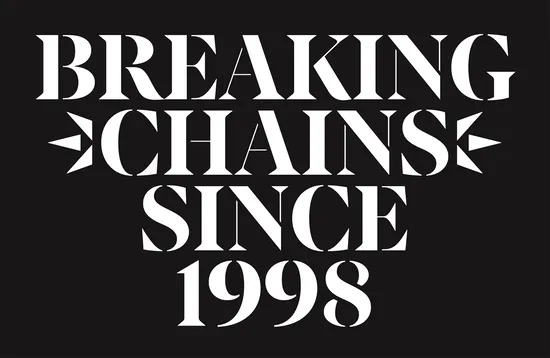
Cin Cin
Cin Cin is a charming hand-lettered font. It includes a very well balanced upper and lowercase, giving it the flexibility to be used as more than display type. It’s perfect for books, greeting cards, posters, and even logos. It injects fun and energy into any project it’s used for.
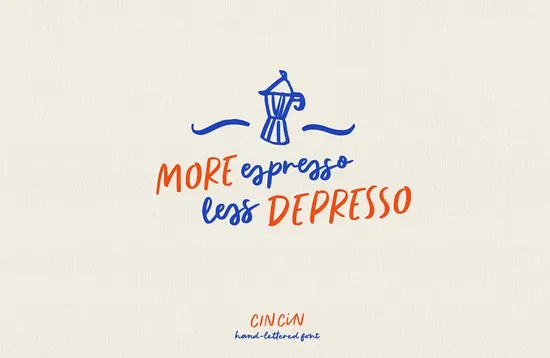
Caslonian
Caslonian is an English-inspired typeface originally designed by ZeCraft for Estée Lauder. It draws on exaggerated contrasts and proportions from historical Caslon specimens, offering a contemporary take on the style. Caslonian is a tribute to expressive headline faces, blending past and modern design influences.
Scotus Sans
Scotus Sans is a low-contrast sans-serif family inspired by the successful 15th-century Scotus Roman type. It offers excellent readability across web and print. It combines simplicity with tradition, ranging from thin to black weights, with a unique matching italic.
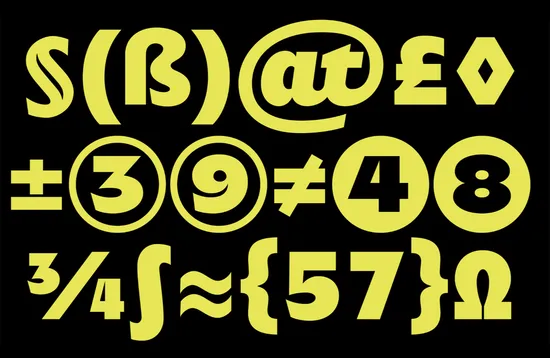
Gamuth Sans
Gamuth is a versatile typeface family with serif and sans-serif variations designed for both web and print. Inspired by Dutch Baroque faces, it features narrow proportions, generous x-heights, and crisp detailing. Gamuth Sans excels in UI applications, offering clarity, flexible content hierarchy, and consistent metrics for seamless formatting.
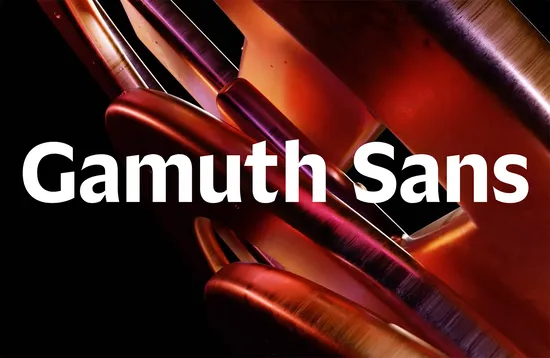
De Gyubee
De Gyubee is an elegant, modern serif typeface with a luxurious, minimalist style. Ideal for websites, logos, branding, and wedding stationery, it features capital letters along with unique, classy alternatives. Its clean design suits a wide range of creative projects.
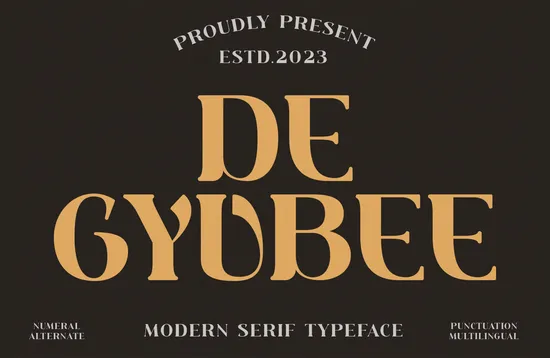
Lineal
Lineal is a free font family initiated by Frank Adebiaye and inspired by Gérard Manset’s song “2870.” Originally designed in 2010, it resembles a modular Futura without optical corrections. Since 2019, the character set, weights, and language support has been expanded.
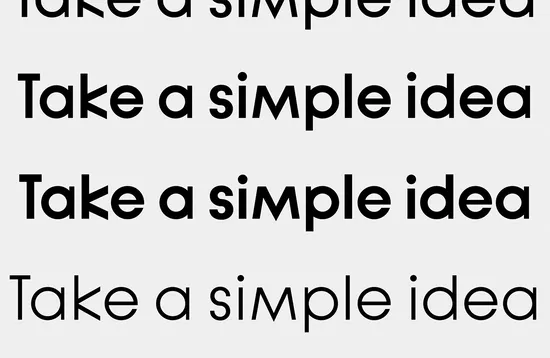
Zeist
Zeist is a geometric sans serif typeface by Luzi Types, blending early 20th-century modernism with customizable features. Inspired by Futura, Neuzeit Grotesk, and Avenir, it offers clean lines, consistent shapes, and dynamic axes for terminals, x-height, weight, and italics, making it highly versatile for designers.
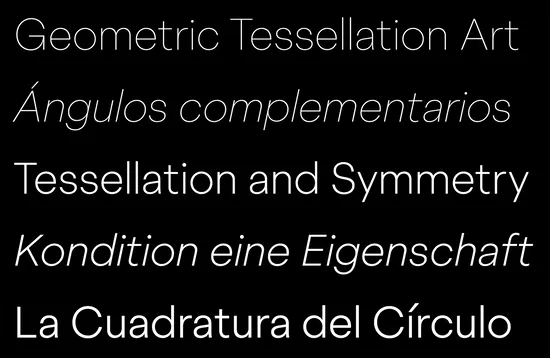
French Aperitif
French Aperitif is a hand-drawn font family featuring six unique fonts and fun alternate letters. Perfect for modern posters, wedding stationery, and content creation, it adds a creative, personal touch to designs. This quirky, one-of-a-kind font is 100% hand-drawn, making it truly special.
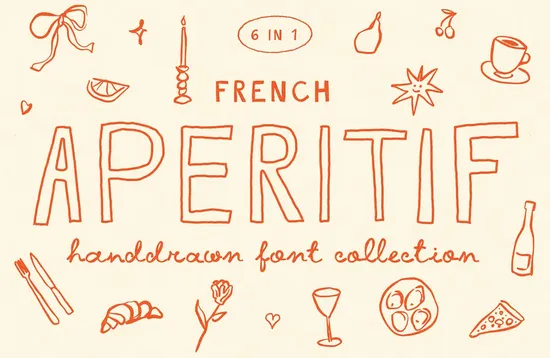
Brillante
Brillante is a modern serif font inspired by vintage Italian Art Nouveau shop signs. It features thin horizontal serifs, vertical letters, and a modern x-height. With numerous ligatures, contextual alternates, and stylistic sets, it’s ideal for headings, posters, logotypes, and labels.
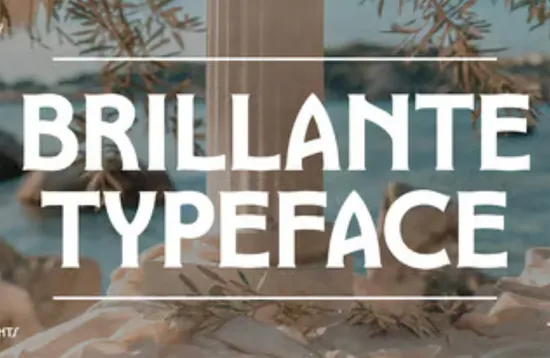
Rudnik
Rudnik is a script font family with regular and italic styles, inspired by vintage calligraphy and modern monoline fonts. Its even spacing creates rhythmical, balanced words with distinctive letters. Featuring ligatures and swashes, Rudnik suits posters, packaging, menus, and elegant designs.
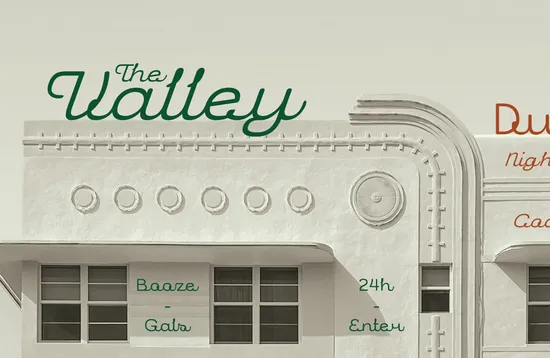
Forzata
Forzata began as a caps-only font, inspired by a hand-painted “no parking” sign in Florence. It evolved into a unique typeface with straight lines, round counters, and a lowercase set without ascenders or descenders, blending industrial engraving with a handmade, vernacular style.
Ringle
Ringle is a retro serif typeface with a modern twist, featuring sharp italics and strong contrast. With 18 weights, it’s ideal for luxury branding projects. Highly versatile and readable, Ringle suits nostalgic designs like bold magazine images, wedding invitations, posters, logos, and more.
Amolla Raspers
Amolla Raspers is a bubble-style handwritten font, ideal for various projects including logos, branding, packaging, mugs, quotes, posters, t-shirts, book covers, invitations, and greeting cards. It adds a playful, handwritten touch to designs, making it perfect for creative and special events.